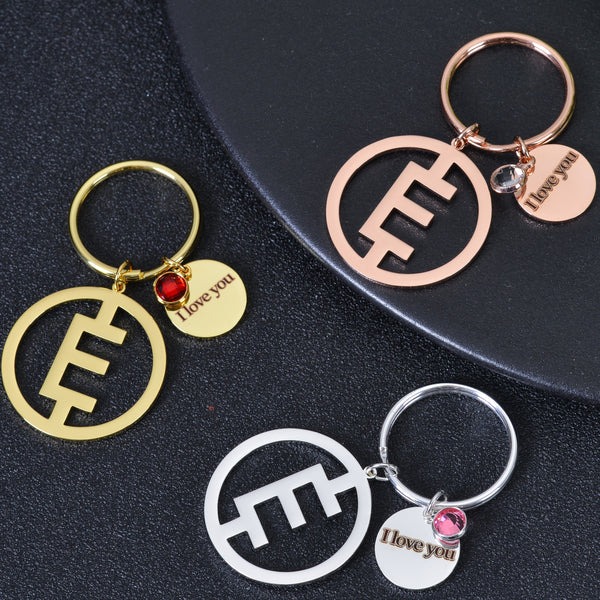
Personalized keychains are a fantastic way to add a touch of individuality to your everyday accessories. Whether you’re gifting a keychain with someone's name or creating one for yourself, the font style you choose can make a huge impact. A well-selected font can transform a simple keychain into a statement piece that reflects personality and style. Here, we explore some unique font styles to make your key chain with name stand out.
1. Classic Serif Fonts for a Timeless Look
Serif fonts are traditional, elegant, and timeless. With their distinctive small lines at the ends of each letter, serif fonts convey a sense of sophistication and reliability. A classic serif font like Times New Roman or Garamond works perfectly for those who love a refined, classic look. If you want a name keychain that feels timeless, these fonts are ideal. They’re perfect for formal events like weddings or anniversaries, as well as for professional settings where a touch of elegance is appreciated.
2. Modern Sans-Serif Fonts for a Clean, Minimalist Appeal
For a contemporary and sleek look, modern sans-serif fonts are an excellent choice. These fonts are clean, simple, and have no extra lines or decorations. Popular sans-serif fonts like Helvetica, Arial, and Futura are minimalist, making them ideal for those who appreciate clean designs and modern aesthetics. A sans-serif font on a keychain is perfect for people who enjoy subtlety, and it works well with minimalist bags or accessories. It’s a great choice for casual wear or when you want the name to be the focal point of the design without distractions.
3. Handwritten Fonts for a Personal, Warm Touch
If you want your keychain to feel warm, personal, and unique, a handwritten font is the way to go. These fonts imitate the fluidity and personality of human handwriting, giving the keychain a more intimate, custom feel. Fonts like Pacifico, Dancing Script, or Lobster can convey a sense of fun and friendliness, making them ideal for casual or playful gifts. Handwritten fonts are particularly popular for gifts, especially when given to close friends, family, or loved ones. They add a special touch that makes the keychain feel truly one-of-a-kind.
4. Bold Fonts for a Strong, Impactful Statement
If you want your keychain to make a bold statement, then opting for a bold font is the perfect choice. Fonts like Impact, Bebas Neue, and Anton have thick, heavy lines that demand attention. These fonts exude confidence and strength, making them great for keychains that are meant to stand out. Bold fonts work well for people who want their name or message to be easily readable from a distance. Whether you're going for a strong and empowering look or simply want to add a little drama to your accessories, bold fonts are a great option.
5. Script Fonts for a Fancy, Elegant Touch
For an extra dash of elegance and flair, script fonts can add a touch of luxury to your name keychain. These fonts mimic cursive writing and have flowing, elegant lines that feel graceful and sophisticated. Fonts like Brush Script, Great Vibes, and Allura are fantastic choices for creating a name keychain that feels fancy and chic. Script fonts are often used for weddings, anniversaries, or any event that calls for a touch of elegance. Pairing them with metallic materials or a soft leather keychain will enhance the luxe feel.
6. Retro Fonts for a Fun, Nostalgic Vibe
If you want a playful and nostalgic touch, retro fonts can bring that vintage charm to your keychain. Fonts like Press Start 2P, Rock Salt, or VTC Letterpress evoke feelings of the past with their distinct 80s or 90s vibes. These fonts are perfect for people who love a bit of fun, whimsy, or pop culture nostalgia. Whether it’s for a friend who’s a fan of vintage designs or simply someone who appreciates a unique style, retro fonts can make your keychain a fun and personal accessory.
7. Monogram Fonts for a Custom, Stylish Look
Monogram fonts are a great way to add a sophisticated twist to your keychain. These fonts often combine initials in a stylish, intertwined design, creating a more intricate and personalized look. Fonts like Monogram KK, Barlow Condensed, and Georgia are perfect for those who want a more customized, elegant aesthetic. Monogrammed keychains are a popular choice for weddings, corporate gifts, or even as a luxury personal accessory. They’re timeless and always in style, offering a chic and polished way to display your name or initials.
8. Fun, Decorative Fonts for a Whimsical, Artistic Touch
For those who enjoy a more artistic and creative vibe, decorative fonts are the way to go. These fonts incorporate flourishes, swirls, and sometimes playful shapes. Fonts like Wild Youth, Cherry Cream Soda, and Funky Fresh add a whimsical, fun vibe to any keychain. Whether you’re creating a fun gift or adding a little quirk to your own accessories, decorative fonts allow you to showcase your personality in a creative and unique way.
Choosing the right font for your key chain with name is an important step in ensuring that your keychain reflects your personality and style. Whether you prefer timeless classics, playful handwritten styles, or bold, statement-making fonts, there is a perfect font for everyone. Don’t be afraid to experiment with different styles and see which one resonates with you the most. A personalized keychain is more than just a functional item – it’s a reflection of your individuality, and the font you choose can help make it truly stand out.